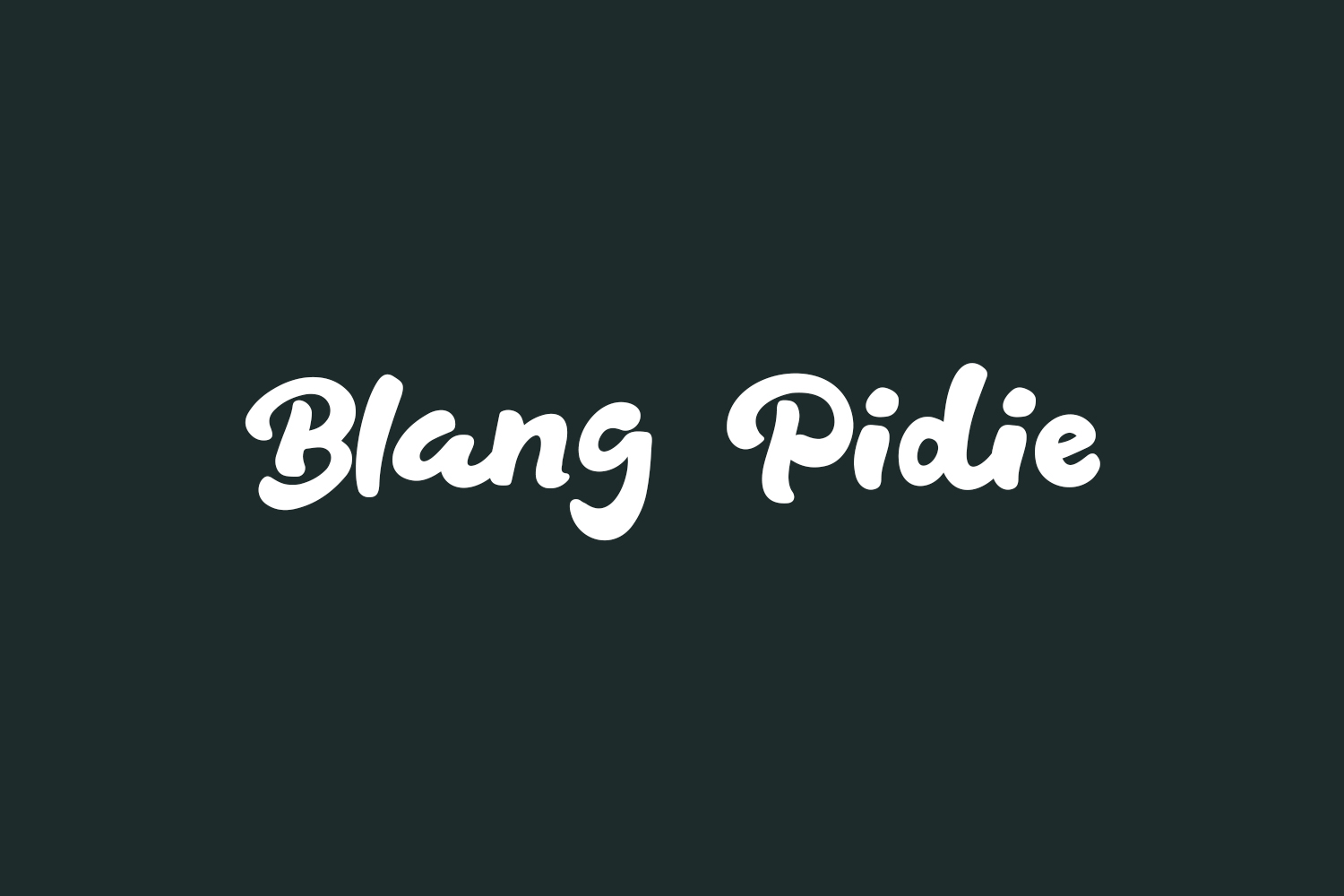
Introducing the playful and charming Blang Pidie Free Font – a fun, handwritten script font perfect for adding a touch of personality to your designs. With its organic and fluid lines, this font embodies the spirit of effortless handwriting, making it ideal for use in a wide range of creative projects, from social media graphics to invitations and more.